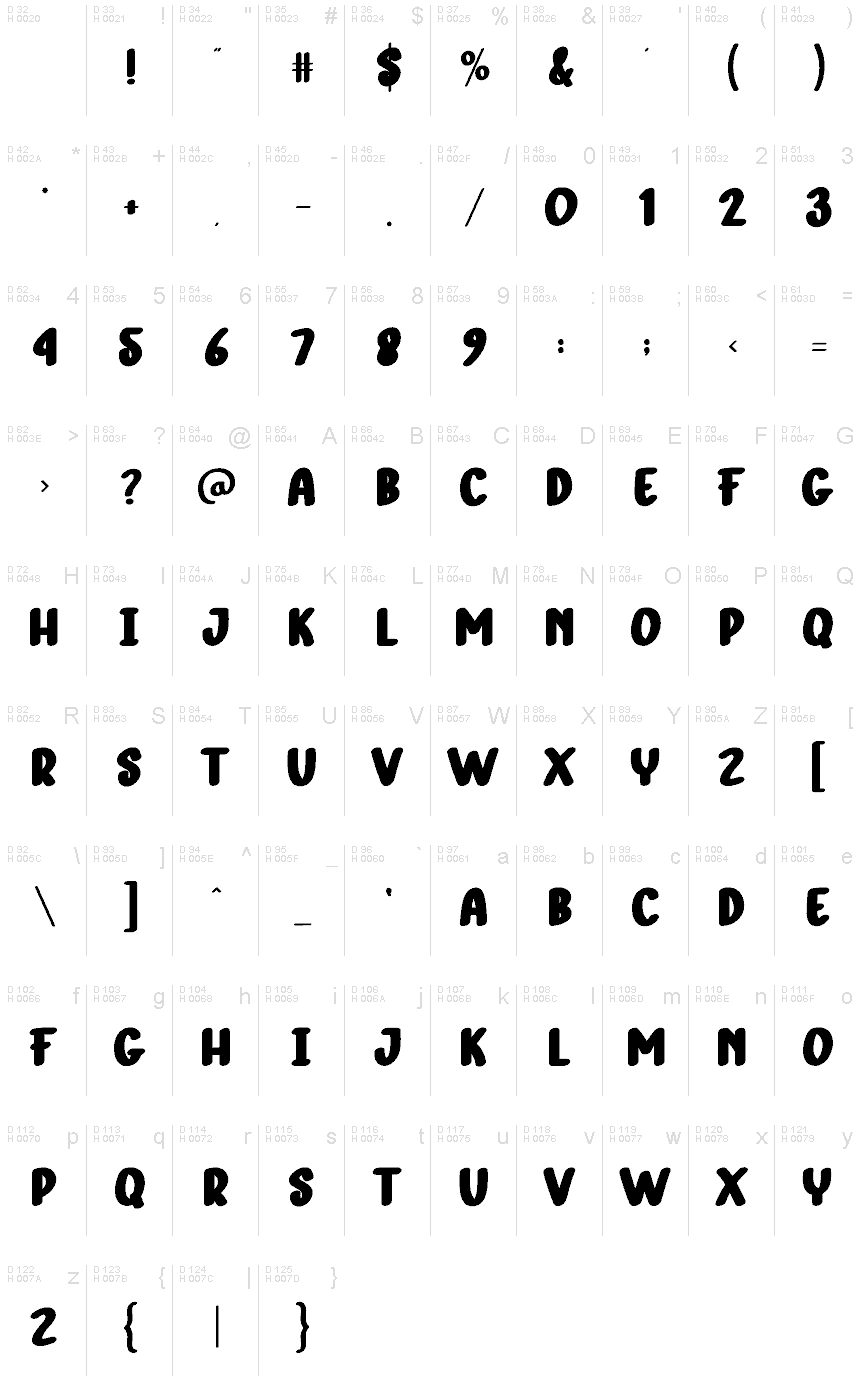
Kind Love
Kind Love font by Andi Moz is a bold brush free font with an organic feel and modern approach. Rounded edges and a soft appearance create a friendly, approachable atmosphere meant for kind communication. Both lighter and darker backgrounds complement this artistic typeface to get the most out of its fun, stylish letters.
Use it for book covers, posters, packaging designs, titles or subtitles of logos, headlines on blogs or websites, social media covers or posts. Stationery items like invitation cards of various types can be also done via Kind Love if you’re looking to bring in a positive attitude to your audience’s faces!